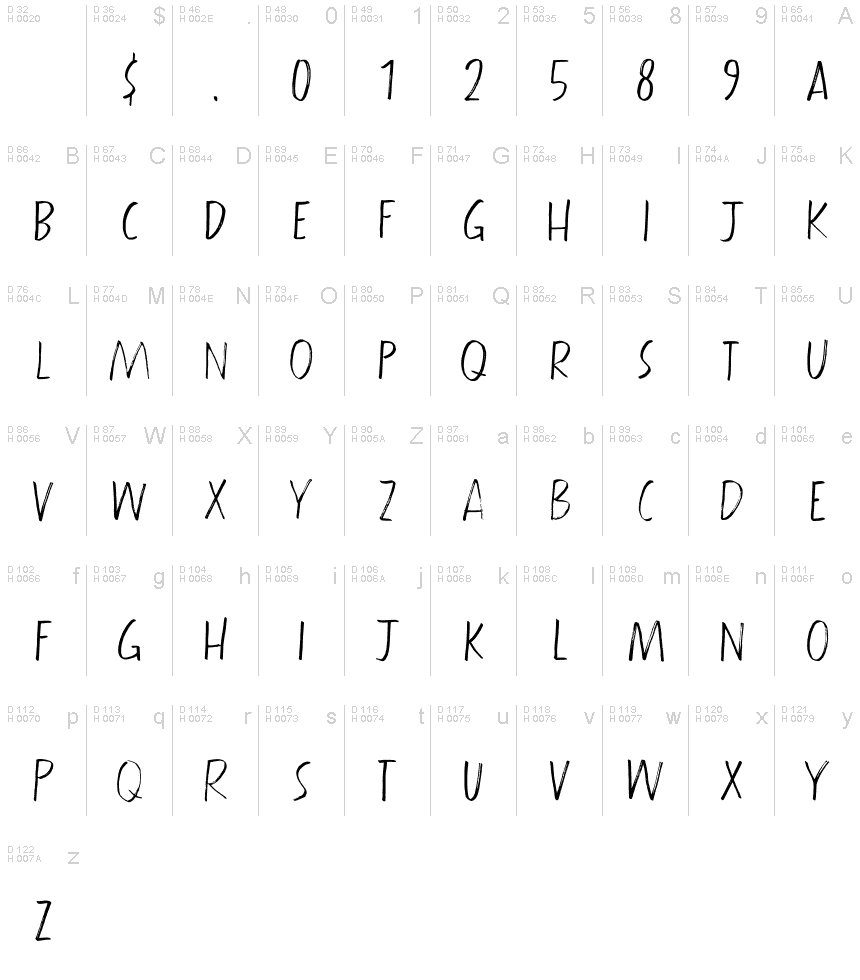
Black Molasses Light DEMO Regular
Black Molasses Light is a captivating font from the Black Molasses family, designed by Hanoded. With its dry brush style and semi-light weight, this font exudes an artistic and organic feel. Its condensed width adds a touch of elegance to any design.
Perfect for branding projects seeking a modern yet rustic touch, Black Molasses Light brings sophistication to packaging designs, logo creation, and website headers. This versatile font will effortlessly elevate your projects with its unique charm and attention-grabbing appeal.